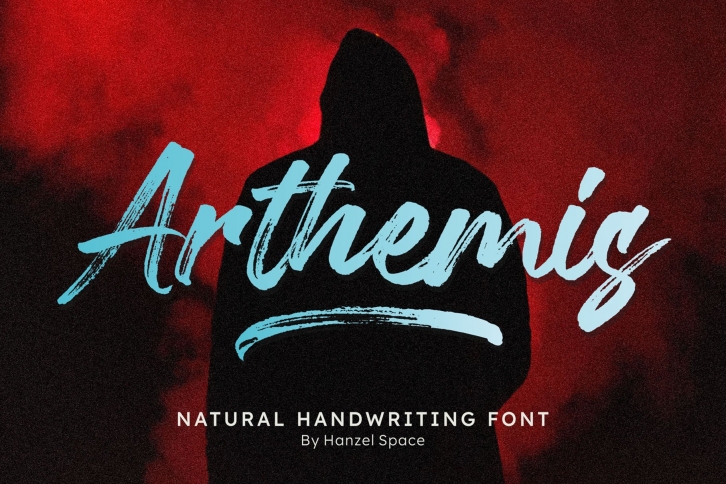
Arthemis is a trendy and unique font with an authentic style. It was designed by HanzelStudio and it's a great choice for creative people who need such a font. It was released on August 24, 2022 and the file size is 10.66 MB. Arthemis will add an organic vibe to any design idea!